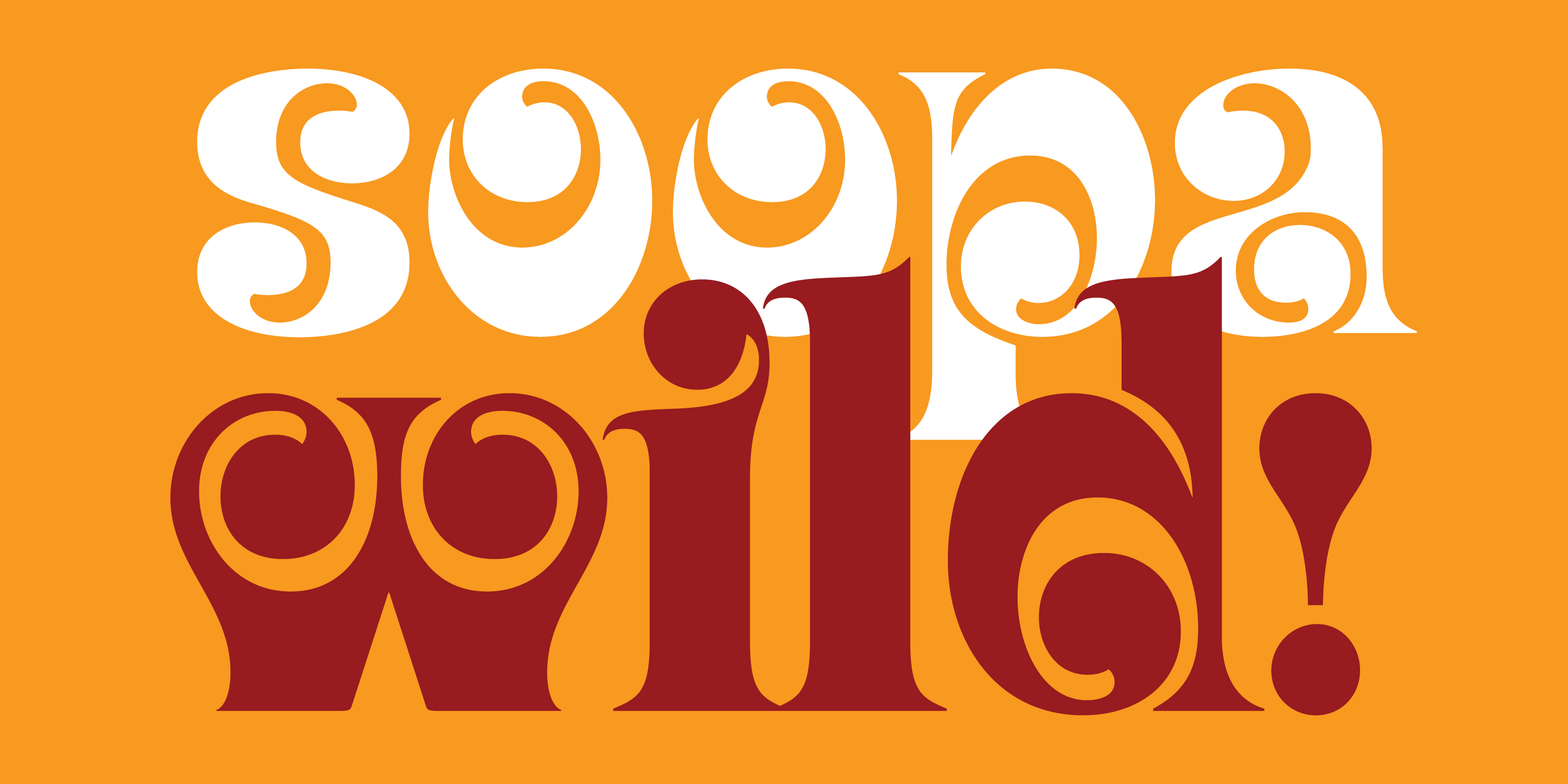
Jojo Font is perfect for playful branding, children's materials, fun advertising campaigns, casual signage, friendly corporate communications, energetic event graphics, cheerful publications, and vibrant display typography.
What makes Jojo Font exciting is its playful energetic character that embodies joy and youthful enthusiasm through bouncy letterforms and cheerful appeal. This delightful typeface features playful construction, joyful details, and energetic personality that captures the essence of fun and positive energy, making it ideal for projects seeking to communicate happiness, playfulness, and vibrant energy with authentic joyful appeal and cheerful sophistication.
The Jojo Font family includes Light, Regular, and Bold weights, each maintaining the characteristic playful energy and joyful appeal that define this distinctive typeface's cheerful personality and vibrant sophistication.
Jojo Font Free Download provides access to a typeface that perfectly captures the essence of joy and playful energy. This cheerful font brings authentic fun aesthetics to contemporary projects, making it essential for children's brands, entertainment companies, and joyful organizations targeting audiences who appreciate playful communication and positive energy. The font's playful construction and joyful details ensure immediate recognition of happiness and energy while its distinctive character creates emotional connections among individuals seeking fun experiences and cheerful interactions. Whether designing children's educational materials, playful brand campaigns, or energetic event communications, this font delivers the joyful authenticity and playful sophistication that fun-loving audiences expect. Its playful foundation and joyful symbolism make it indispensable for projects celebrating happiness, positive energy, and the uplifting power of cheerful communication, ensuring messages resonate with audiences who value the joyful spirit, playful creativity, and positive energy that define authentic fun experiences and cheerful lifestyle choices across diverse entertainment and family-friendly applications.